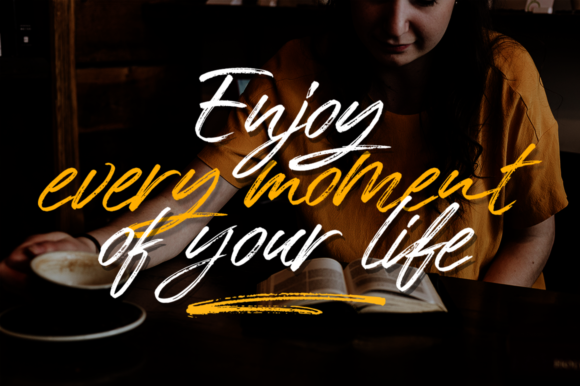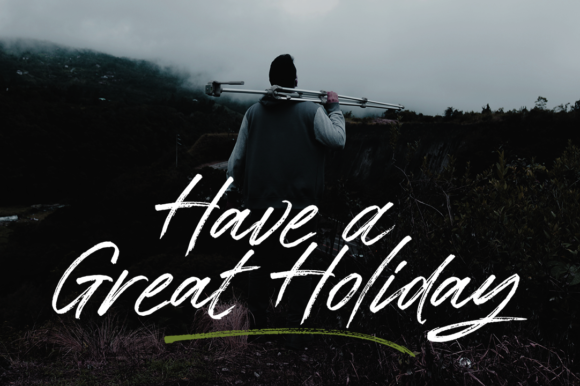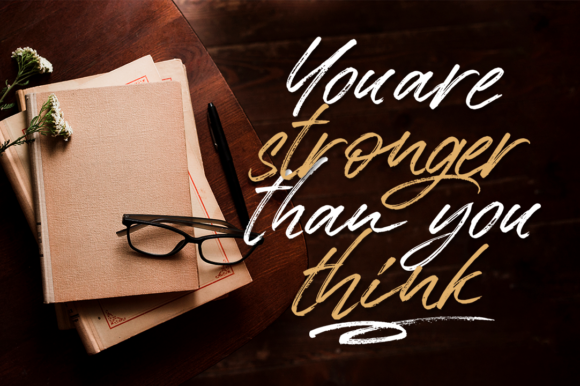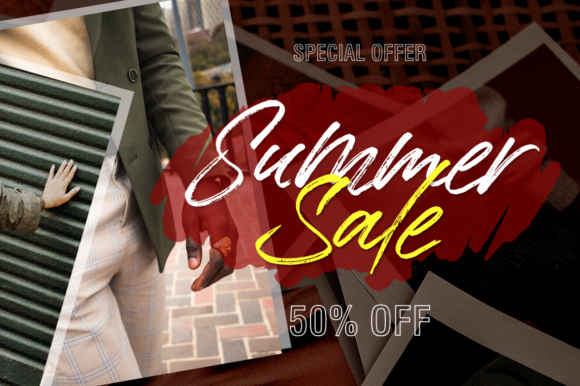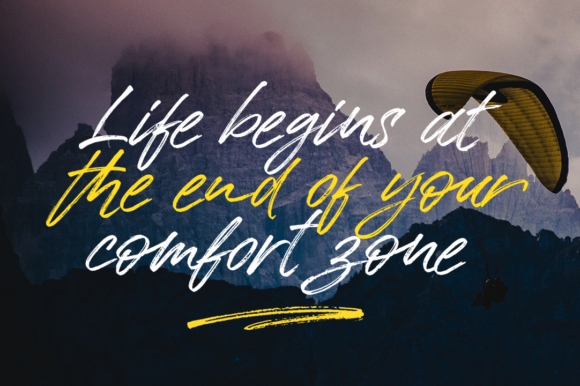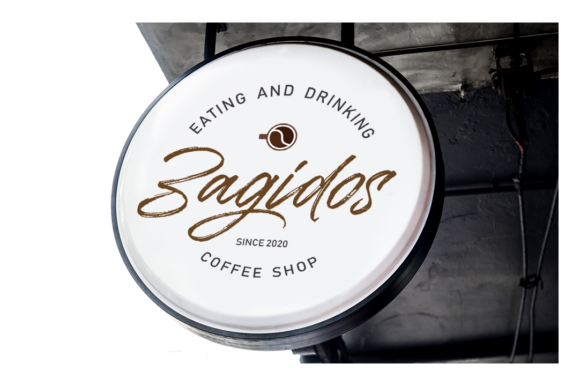
The Epidson Font: A Rough Brush Script for Creative Projects
I’ll never forget the time I was working on a logo design project for a trendy boutique, and I just couldn’t seem to find the right font. The client wanted something that exuded elegance and sophistication, but also had a touch of playfulness. I scoured the internet, tried out dozens of fonts, but nothing seemed to fit the bill. That was until I stumbled upon the Epidson font. With its rough brush script style and dramatic movement, it was love at first sight! 💕
An Honest Review of Epidson Font
What I Love About Epidson Font
- ✨ Unique and eye-catching design that’s sure to make your project stand out
- ✅ Clear style and dramatic movement that adds a touch of elegance to any design
- 💫 Perfect for a wide range of creative projects, from logos and branding to invitations and packaging
- 🎨 Highly versatile and can be used for both digital and print projects
While Epidson font is an amazing addition to any design project, there are a few things to keep in mind. For example, ⚠️ some of the letters may be a bit tricky to read at smaller sizes, so it’s best to use it at larger sizes or for headlines. Additionally, 🤔 the font may not be the best choice for body text or long paragraphs, as it can be a bit challenging to read.
The Story Behind Epidson Font
Epidson font was designed by a team of creatives who wanted to create a font that captured the essence of hand-painted signs and rough brush scripts. Inspired by the works of street artists and graffiti writers, Epidson font is a unique blend of elegance and playfulness. The design team spent countless hours perfecting the font, experimenting with different brushstrokes and letterforms until they landed on the perfect combination.
Q: Is Epidson font available in different weights or styles?
A: Currently, Epidson font is available in a single weight, but the design team is working on adding more weights and styles in the future.